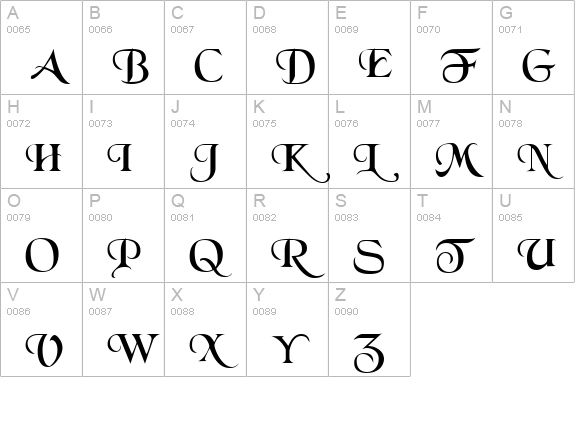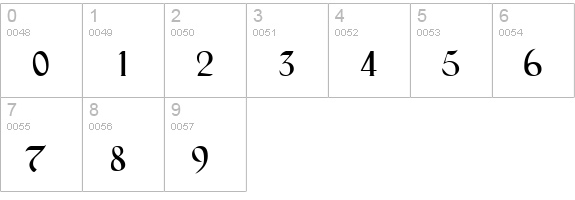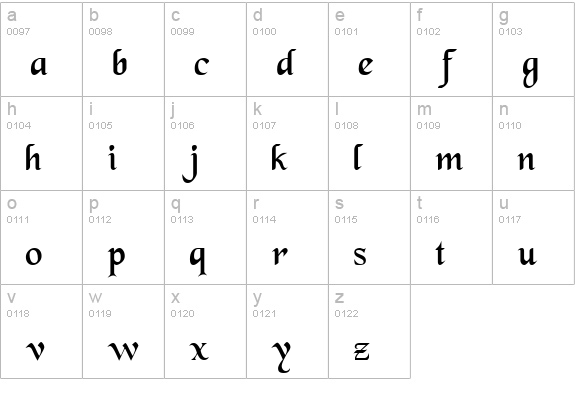
QTBlackForest Regular is the standard, neutral variant in the QTBlackForest typeface family \xE2\x80\x94 well suited to general body text, paragraphs, and standard typographic work.
QTBlackForest Regular is a stunning font that exudes elegance and sophistication. With its graceful curves and refined letterforms, this font is perfect for adding a touch of class to any project. Whether you're designing a logo, creating a wedding invitation, or crafting a beautiful website, QTBlackForest Regular is sure to impress. What's even better is that QTBlackForest Regular is completely free to use! Yes, you read that right - this incredible font can be yours without costing you a dime. It's freely available to download at FontsMarket.com, a trusted source for high-quality fonts. With QTBlackForest Regular, you don't have to sacrifice style for affordability. This font offers the best of both worlds, making it an ideal choice for designers, creatives, and anyone in need of a sophisticated typeface. Its versatility allows it to work seamlessly in both print and digital media, ensuring that your message is conveyed with utmost elegance. The attention to detail in QTBlackForest Regular is truly remarkable. Each letter is meticulously crafted, resulting in a font that is both visually stunning and highly legible. Its clean lines and balanced proportions make it a joy to work with, allowing you to create beautiful designs with ease. Whether you're a seasoned designer or just starting out, QTBlackForest Regular is a must-have in your font collection. Its timeless appeal and effortless beauty will elevate your projects to new heights. So why wait? Go ahead and download QTBlackForest Regular for free at FontsMarket.com and unlock a world of design possibilities.